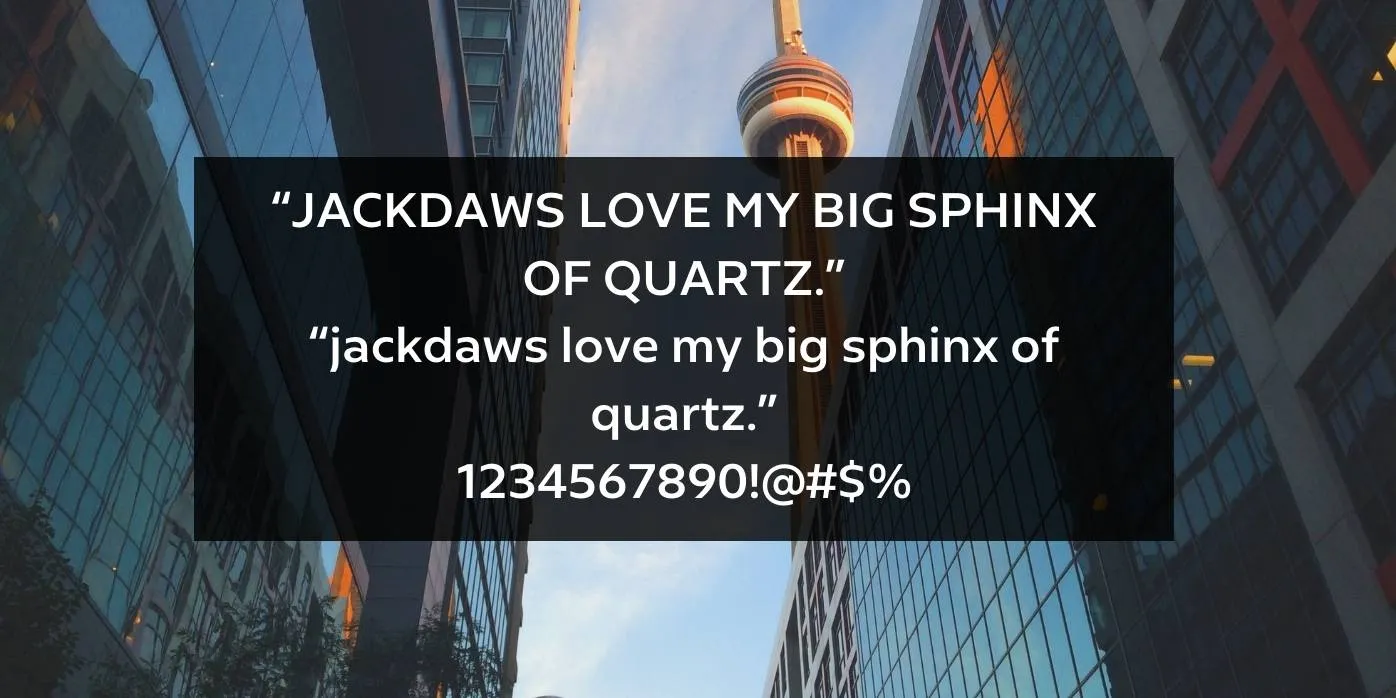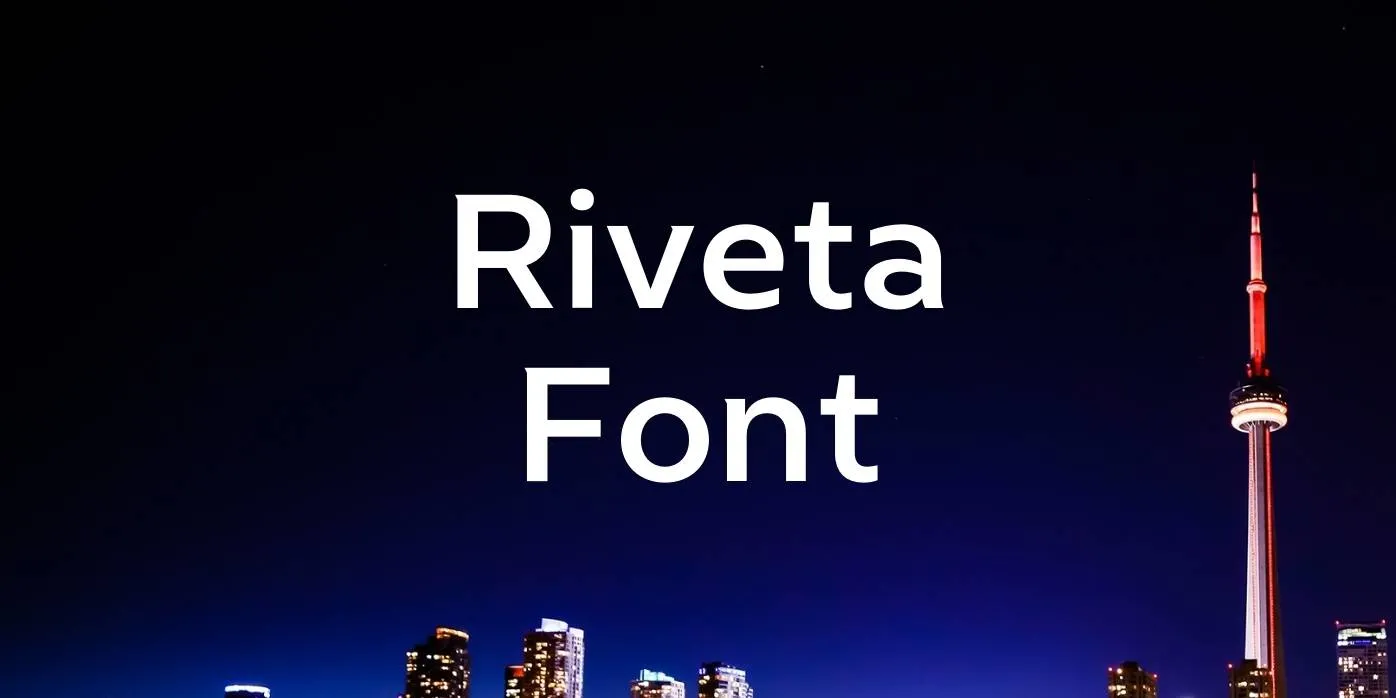
Riveta Font
Today, we present a classy typeface named Riveta Font that was designed by Joel Carrouche. It belongs to the sans serif family. In 2021, it was published by a Swiss foundry. This sans serif font has a modern and functional look.
As Joel says, the main inspiration for this typeface came from road signs. This is because he wanted to create a typeface that would be easy to read from a distance. It has two different styles: Regular and Bold. Each style contains 6 weights Light, Regular, Medium, Semibold, Bold, and Black.
This gives you a total of 18 different weights to choose from. This family is not included in Google font. You can use questrial font which has the same style and characters same as this one. One of the best things about this typeface is that it comes with a set of 7 bonus fonts.